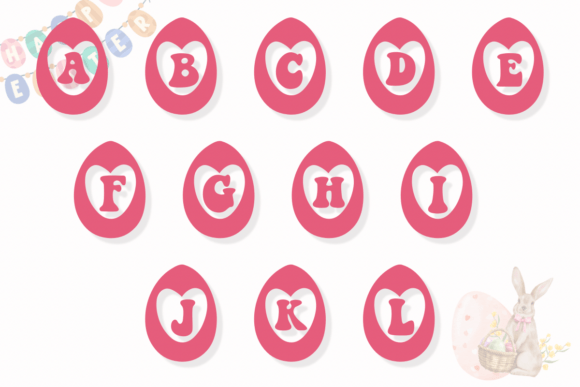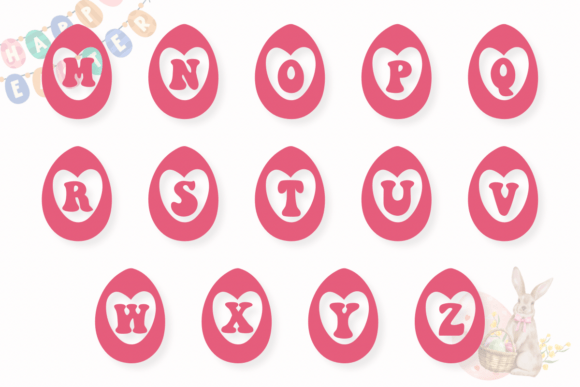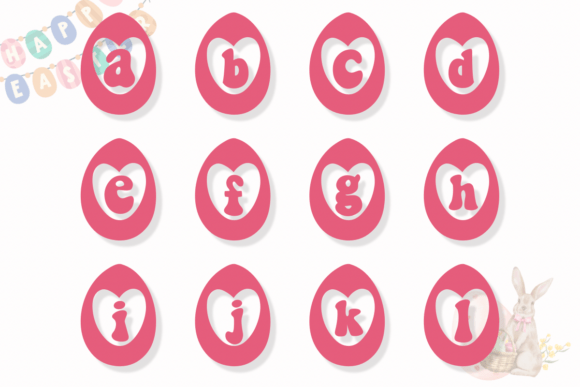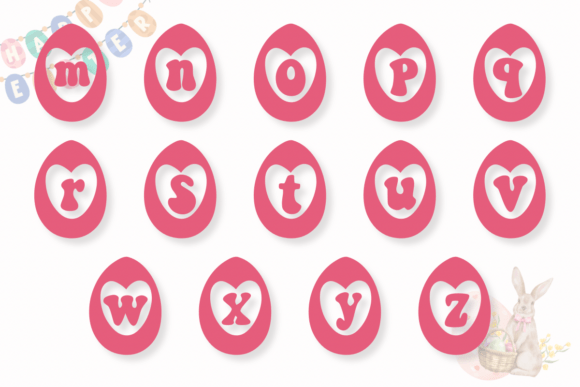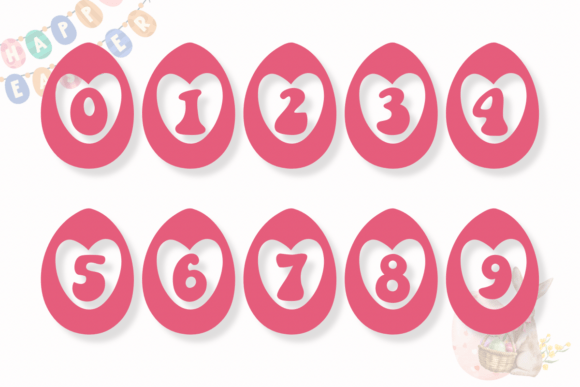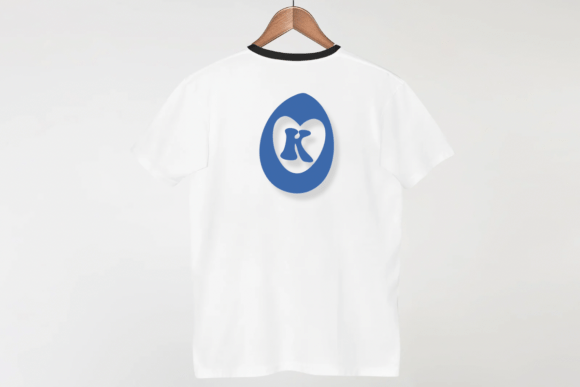
Introducing the Heart Easter Egg Font: A Delightful Addition to Your Creative Projects
Are you looking for a unique and playful font to add a touch of whimsy to your designs? Look no further than the Heart Easter Egg Font! This decorative font is perfect for crafters, designers, and anyone looking to add a bit of personality to their creative projects. In this article, we’ll explore the features and uses of the Heart Easter Egg Font, and how it can elevate your designs to the next level.
What is the Heart Easter Egg Font?
The Heart Easter Egg Font is a decorative font that features adorable heart-shaped Easter eggs. The font is designed to be used for a variety of creative projects, from taking notes and writing diaries to making greeting cards and other paper crafts. The font’s playful and festive design makes it perfect for Easter-themed projects, but it can also be used for other occasions and designs.
Uses for the Heart Easter Egg Font
The Heart Easter Egg Font is incredibly versatile and can be used for a wide range of creative projects. Here are some ideas to get you started:
- Note-taking and journaling: Add a touch of whimsy to your notes and journal entries with the Heart Easter Egg Font. It’s perfect for headers, titles, and embellishments.
- Greeting cards: Create one-of-a-kind greeting cards for Easter, birthdays, and other special occasions. The font’s playful design is sure to bring a smile to the recipient’s face.
- Banners and signs: Use the Heart Easter Egg Font to create eye-catching banners and signs for parties, events, and displays.
- Mugs and water bottles: Add a personal touch to your mugs and water bottles with the Heart Easter Egg Font. It’s a great way to make your drinkware stand out.
- Cards and invitations: Create custom cards and invitations for special occasions, such as baby showers, bridal showers, and graduations.
- Stationery and paper crafts: Use the Heart Easter Egg Font to add a touch of personality to your stationery, paper crafts, and other DIY projects.
- Social media posts: Add a playful touch to your social media posts with the Heart Easter Egg Font. It’s a great way to make your posts stand out and engage your audience.
- T-shirts and apparel: Use the Heart Easter Egg Font to create custom t-shirts, hoodies, and other apparel for special occasions or as a fun way to express yourself.
Tips for Using the Heart Easter Egg Font
Here are some tips for getting the most out of the Heart Easter Egg Font:
- Experiment with colors: The Heart Easter Egg Font looks great in a variety of colors, so don’t be afraid to experiment and find the perfect hue for your project.
- Mix and match: Combine the Heart Easter Egg Font with other fonts and graphics to create a unique and eye-catching design.
- Use it sparingly: While the Heart Easter Egg Font is playful and fun, it can be overwhelming if used too much. Use it sparingly to add a touch of personality to your design.
- Have fun: Most importantly, have fun with the Heart Easter Egg Font! It’s a playful and creative font that’s meant to bring joy and whimsy to your designs.
The Heart Easter Egg Font is a delightful addition to any designer’s or crafter’s toolkit. Its playful and festive design makes it perfect for a wide range of creative projects, from Easter-themed designs to everyday paper crafts. With its versatility and ease of use, the Heart Easter Egg Font is sure to become a favorite among crafters and designers of all skill levels. So why not give it a try and see how it can elevate your designs to the next level?
Whether you’re a seasoned designer or a crafty hobbyist, the Heart Easter Egg Font is a great way to add a touch of personality and whimsy to your creative projects. So go ahead, get creative, and have fun with the Heart Easter Egg Font!